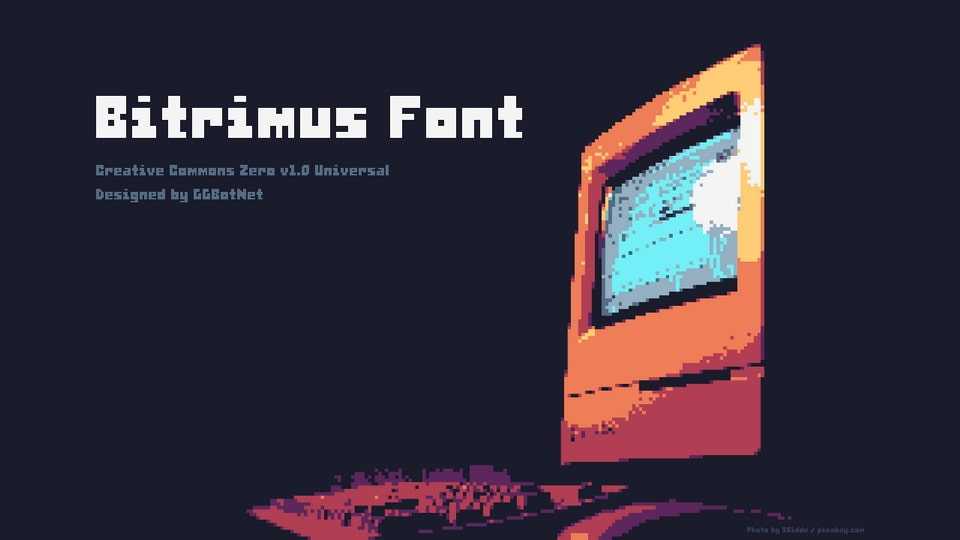
Download Bitrimus font, a bold, retro-inspired pixel art typeface that pays homage to the vibrant world of classic gaming and digital nostalgia with its chunky, geometric design.